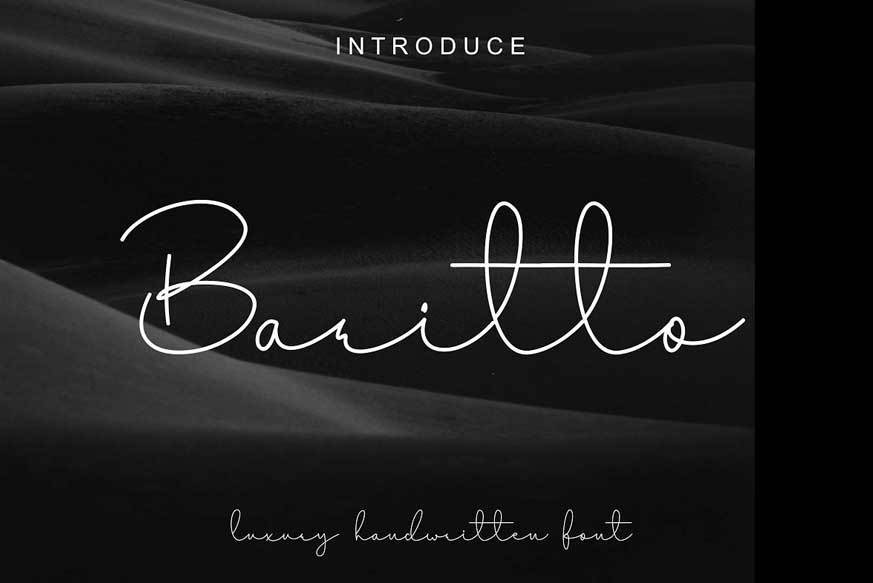
Baritto Handwritten Font
Baritto is a handwritten script with natural marks & amp; style flow. This collection of scripts is perfect for personal branding.
It was created with the intention to use lifestye blogs, photographers, retail brands, fashion and name logos.